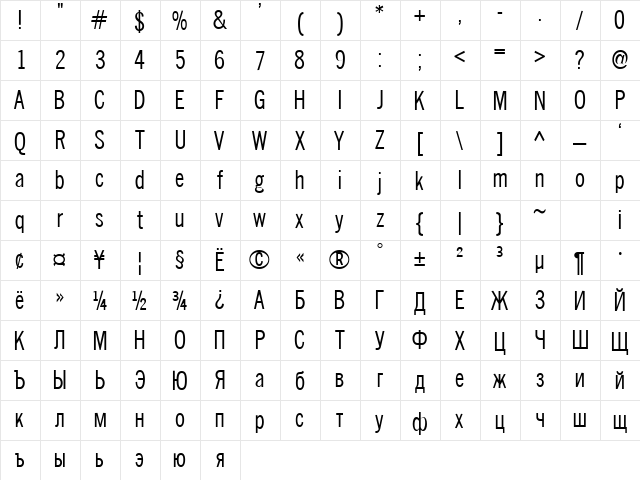
NewsCondensed Normal
Design Context for NewsCondensed Typeface
NewsCondensed takes a measured approach to typography — its balanced proportions and neutral character make it a reliable workhorse for both digital and print work. Its narrow stance lets it pack a punch even in space-constrained designs.